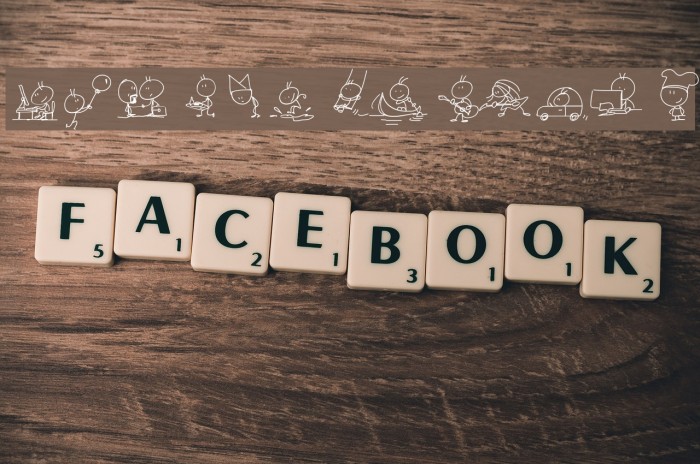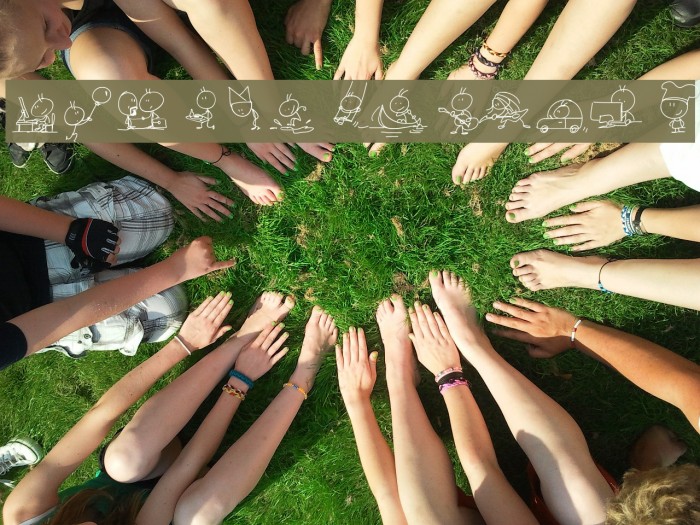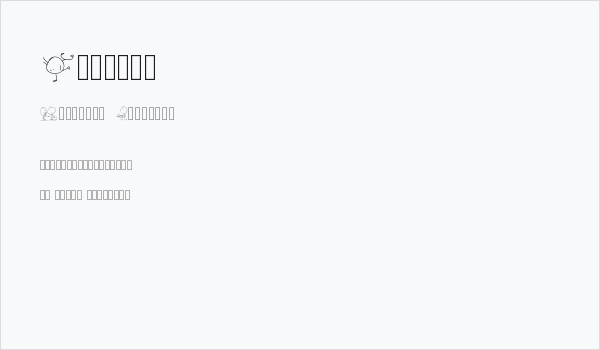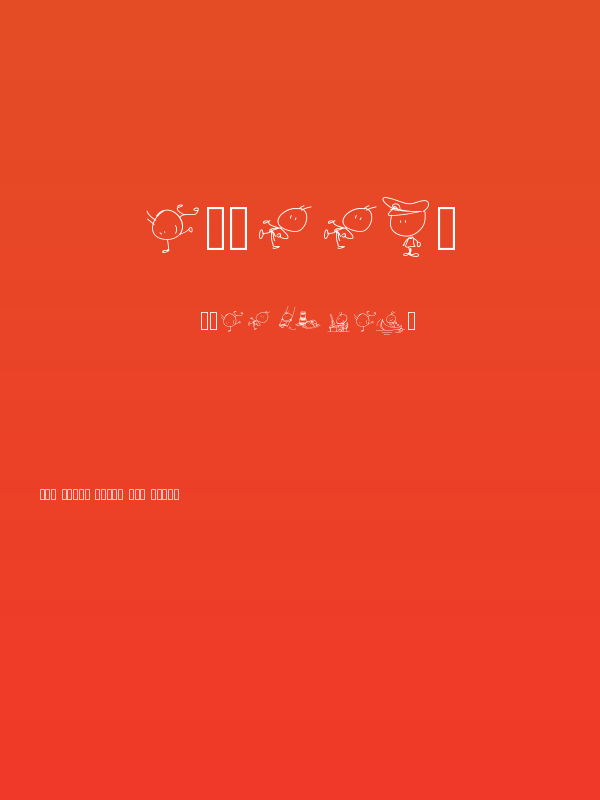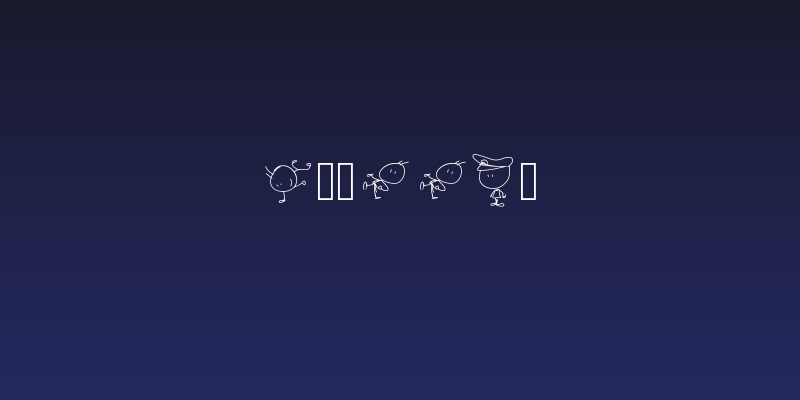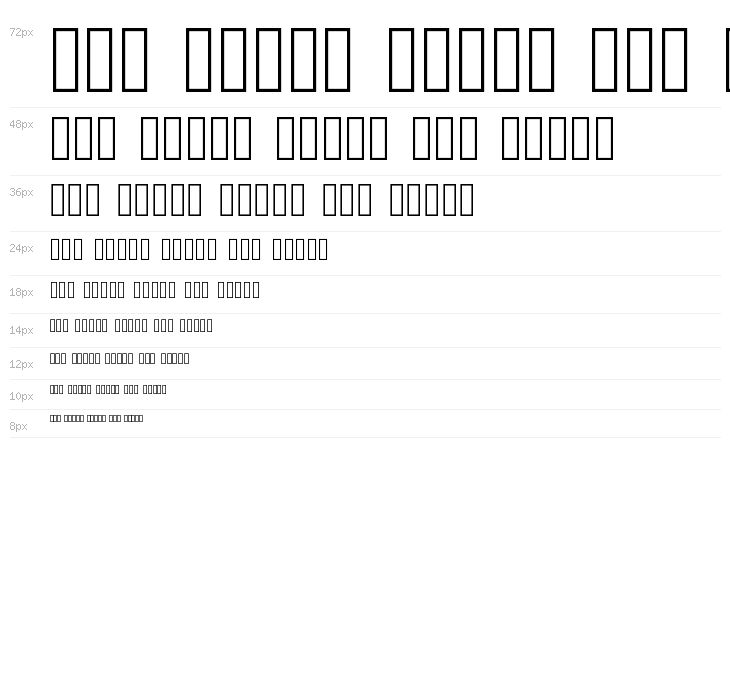
PWToonz Font
PWToonz Description
This font is a playful and whimsical design featuring stick figure characters engaged in various activities. The characters are drawn with simple lines and minimal detail, giving them a charming and humorous appearance. The font includes a variety of poses and props, adding to its lively and dynamic feel. It's perfect for projects that require a lighthearted and fun touch, such as children's books, comic strips, or playful branding. The overall style is casual and informal, making it suitable for creative and imaginative applications.
| Overall Style | Playful and whimsical |
| Proposed Projects | Ideal for children's books, comic strips, playful branding, and creative projects. |